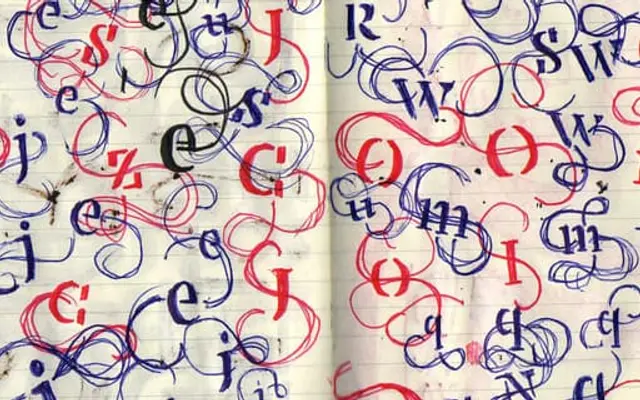
Marlene Stencil
A stencil system built across four weights that extends the Marlene family into cut-out letterform territory.
Marlene Stencil is a stencil display system derived from the Marlene family, offered in Light, Regular, Medium and Bold weights. The system sits alongside upright and italic cuts of the base Marlene family and the Marlene Grande subfamily. City-named styles — Amsterdam, Bengaluru, Copenhagen and Damascus — suggest localised or regional variant applications. Latin script coverage is confirmed.
Explicitly a stencil system derived from the Marlene typeface family, with stencil cuts designed for display use across multiple weights.